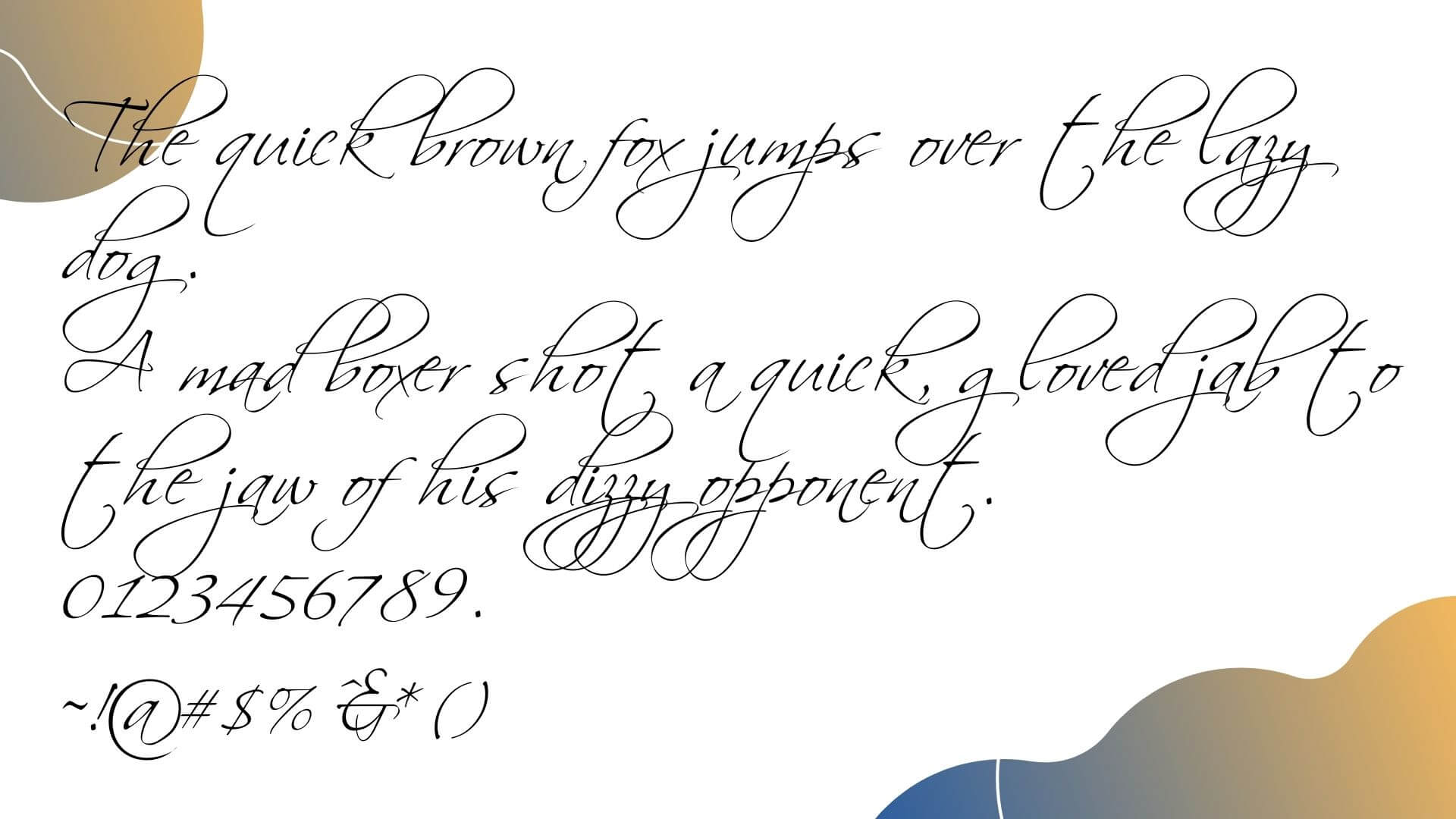
Scriptina Font is a script font that was developed by Apostrophic Labs containing 222 glyphs and more than 200 characters. It has been downloaded numerous times since it became public. Fortunately, the font is accessible to everyone who wants to get their hands on it that has enhanced its usage.
This calligraphy font gives an elegant and classic touch to the design and goes best on many platforms. You can also preview the font with Scriptina Font Generator free of cost that also lets you create different font Posters and Logos text-based. The font was released on 8th January 2009, after which it was updated with some pleasant additions.
Usage of Scriptina Font
The font gives an elegant vibe, so it is considered one of the professional fonts that would go best for business cards or wedding invitations. It also provides a calligraphy touch, so it can best be utilized for T-shirt designs, Tv shows, Banners, Posters, websites, etc. Its extended number of downloads proves the font’s worth and popularity.
Name | Scriptina Font |
Style | Calligraphy |
Designer | Apostrophic Labs |
What Type of Font Is Scriptina?
Scriptina Font is a script and calligraphy font that was originated in 2009 by Apostrophic Labs. It contains 229 characters and 222 glyphs and is considered an ideal choice for professional use.
Who Designed Scriptina Font?
Apostrophic Labs designed this font in 2009. Afterward, it was updated with additional characters and weights making it versatile for every platform.
Is Scriptina a Professional Font?
It is worth recommending font for many purposes. It gives an elegant and classic vibe that goes best for business cards or business projects. You can definitely use this font in serious affairs without giving it a second thought.